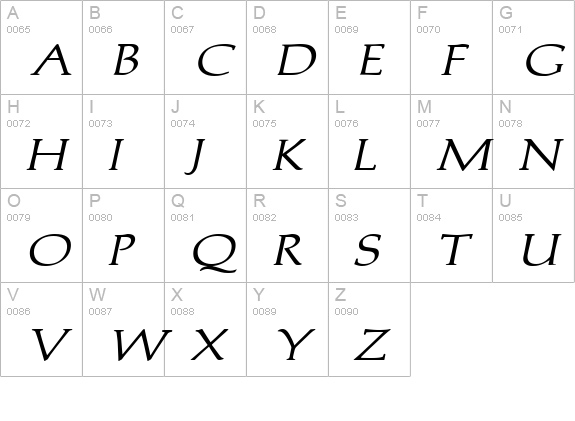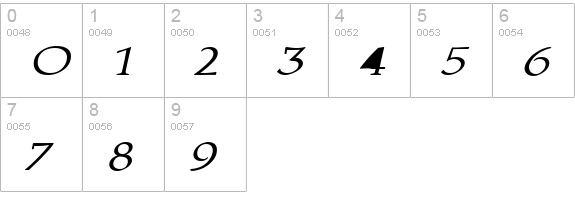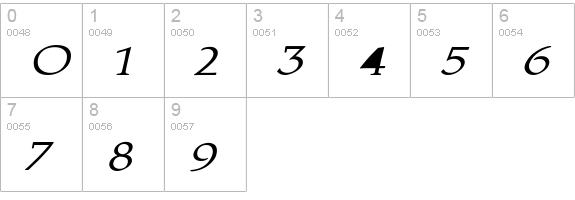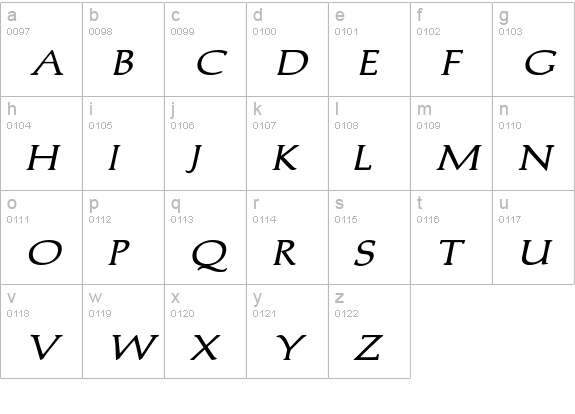
Trajan'sCapsExtended Bold Italic Font Details
Trajan'sCapsExtended Bold Italic is a strong, high-contrast, italic variant in the Trajan'sCapsExtended typeface family \xE2\x80\x94 well suited to headlines, attention-grabbing titles, and strong calls-to-action.
Trajan'sCapsExtended Bold Italic font is an extraordinary typeface that effortlessly combines elegance and boldness. With its captivating curves and powerful strokes, this font exudes a sense of grandeur and sophistication. It is the perfect choice for any project that requires a touch of regality and magnificence. Designed with meticulous attention to detail, Trajan'sCapsExtended Bold Italic font commands attention and adds a touch of authority to any design. Whether used in headlines, logos, or branding materials, this font captures the essence of refined elegance. The unique combination of boldness and italicization in this font creates a striking visual impact. It adds a dynamic and expressive element to your designs, making them stand out from the crowd. Each letter seems to dance on the page, adding a sense of movement and liveliness to your text. What makes Trajan'sCapsExtended Bold Italic font even more exceptional is that it is available for free. You can freely download this font from FontsMarket.com, making it easily accessible to designers and creatives around the world. This font allows you to add a touch of luxury and sophistication to your projects without any financial constraints. Whether you're working on a high-end fashion magazine, a prestigious brand identity, or an upscale event invitation, Trajan'sCapsExtended Bold Italic font is the ideal choice. Its timeless appeal and versatility make it suitable for a wide range of design applications. Embrace the elegance and power of Trajan'sCapsExtended Bold Italic font and elevate your designs to new heights. Let this font be the defining element that sets your work apart and leaves a lasting impression on your audience. Download it for free at FontsMarket.com and unlock a world of possibilities for your creative endeavors.